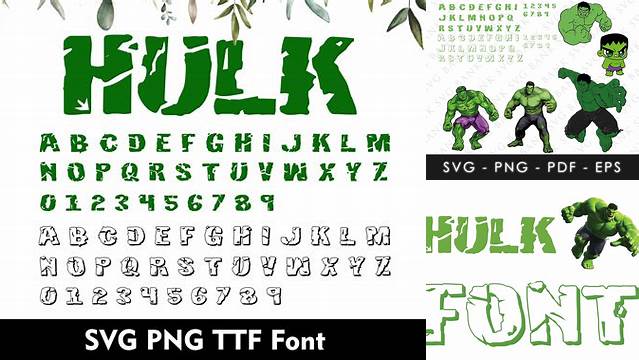
Hulk Font SVG: Unleash Your Inner Superhero!
The Incredible Hulk Font: A Font for All Your Marvelous Needs
Hey guys, let's talk about the Hulk font SVG! If you're a massive Marvel fan, especially of our favorite green rage monster, the Hulk, then you've probably seen that iconic, blocky, and powerful font that graces his movie posters, comic books, and merchandise. Well, guess what? You can now bring that same electrifying energy to your own projects with the Hulk font SVG. This isn't just any font; it’s a statement. It screams strength, power, and a touch of uncontainable fury. Whether you're designing a t-shirt for a comic convention, creating a birthday banner for a fellow Hulk enthusiast, or even just spicing up your social media graphics, the Hulk font SVG is your go-to. It's incredibly versatile, allowing you to customize its size, color, and even texture to match the exact vibe you're going for. Imagine a bold, green, distressed text that looks like it’s literally bursting off the page – that’s the kind of impact the Hulk font SVG can deliver. We're talking about a font that’s instantly recognizable, evoking memories of epic battles and powerful transformations. It's perfect for anything that needs that extra punch, that superhero swagger. So, if you're looking to make a bold impression and tap into the raw power of the Hulk, incorporating this font into your designs is an absolute must. Get ready to smash your creative goals with this awesome font!
Decoding the Power of the Hulk Font Style
So, what exactly makes the Hulk font style so distinctive, you ask? It’s all about that boldness, that sheer visual weight. Think thick, heavy strokes, sharp angles, and an overall feel of raw, untamed power. It’s not a subtle font, guys; it’s designed to grab your attention and hold it. When you see this font, you immediately associate it with the Hulk's immense strength and his iconic, often explosive, personality. The letters are typically sans-serif, meaning they don't have those little decorative feet (serifs) at the end of the strokes. This gives it a modern, clean, and incredibly impactful look. The kerning, which is the spacing between letters, is usually quite tight, making the words appear dense and solid, almost like a single, powerful unit. This typographic choice perfectly mirrors the Hulk's fused-together strength. We're talking about a design that embodies brute force and resilience. The Hulk font style is often characterized by its slightly distressed or rugged appearance, hinting at the constant struggle and the raw, uncontrolled energy that defines the character. It’s a font that doesn't shy away from making a statement; in fact, it thrives on it. Whether it's used in large display text for movie titles or smaller, more controlled lettering for comic panels, its inherent power remains unmistakable. It’s the visual equivalent of a gamma-ray explosion – impossible to ignore and full of kinetic energy. This style is incredibly effective for creating impactful headlines and logos that need to convey a sense of might and dynamism. It’s a typographic representation of pure, unadulterated power, designed to resonate with the energy and spirit of the Hulk himself. It’s the kind of font that makes you feel the rumble before the punch lands.
Exploring Different Hulk Font Variations for Your Projects
Alright, let's dive into the cool world of Hulk font variations! While there's a quintessential Hulk font style, the beauty of using SVGs is that you can find or create so many awesome twists on the original. You might find versions that are more streamlined and modern, perfect for a sleek graphic design. Then there are the ultra-distressed versions, which really lean into that gritty, battle-worn look, making your text feel like it's been through an epic clash. Some designers even create stylized versions where the letters have a subtle glow effect, reminiscent of the gamma radiation that transforms Bruce Banner. Or perhaps you'll stumble upon a version that incorporates jagged edges, giving it an even more aggressive and powerful feel. Think about using a metallic texture overlay on your Hulk font SVG – imagine that classic green transformed into a gleaming, chrome-like finish, or a brushed steel texture that looks incredibly robust. You can also play with outlines; a thick black outline can make the font pop even more, especially against busy backgrounds. Or maybe a subtle gradient within the letters, shifting from a dark, brooding green to a vibrant, radioactive hue. The possibilities are seriously endless, guys! Each variation brings a unique flavor to your design. A slightly more rounded version might feel a bit more approachable, while sharp, pointed edges will amplify the sense of danger and raw power. Consider the context of your project. Are you going for a classic comic book feel? Or a more contemporary movie poster aesthetic? The right variation of the Hulk font SVG can make all the difference in capturing that specific essence. Don't be afraid to experiment; mixing and matching different effects and styles can lead to some truly unique and eye-catching results that are tailor-made for your creative vision.
Integrating Hulk Font SVG into Your T-Shirt Designs
Alright, let's talk about taking your t-shirt game to the next level with the Hulk font SVG, guys! This font is practically made for apparel. Its bold, impactful nature makes it perfect for standing out on fabric. Imagine printing a massive, "HULK SMASH!" across the chest of a t-shirt using that iconic font. It's instantly recognizable and radiates pure energy. When you're working with your Hulk font SVG in design software like Illustrator or Photoshop, the first thing you'll want to do is ensure the colors are set up correctly for printing. Typically, this means using CMYK color modes if you're aiming for a professional print shop, though many modern printers can also handle vibrant RGB colors. Since SVGs are vector-based, you can resize the font to fit perfectly on your t-shirt mock-up without worrying about pixelation. You can experiment with different placement options: centered on the front, a smaller version on the pocket area, or even a bold statement across the back. Consider adding effects like a distressed texture to give it that vintage, worn-in look, or a vibrant gradient that mimics the Hulk's famous green glow. You can also layer the Hulk font SVG with other graphics – maybe an outline of the Hulk himself, or some subtle cracked earth effects to emphasize the